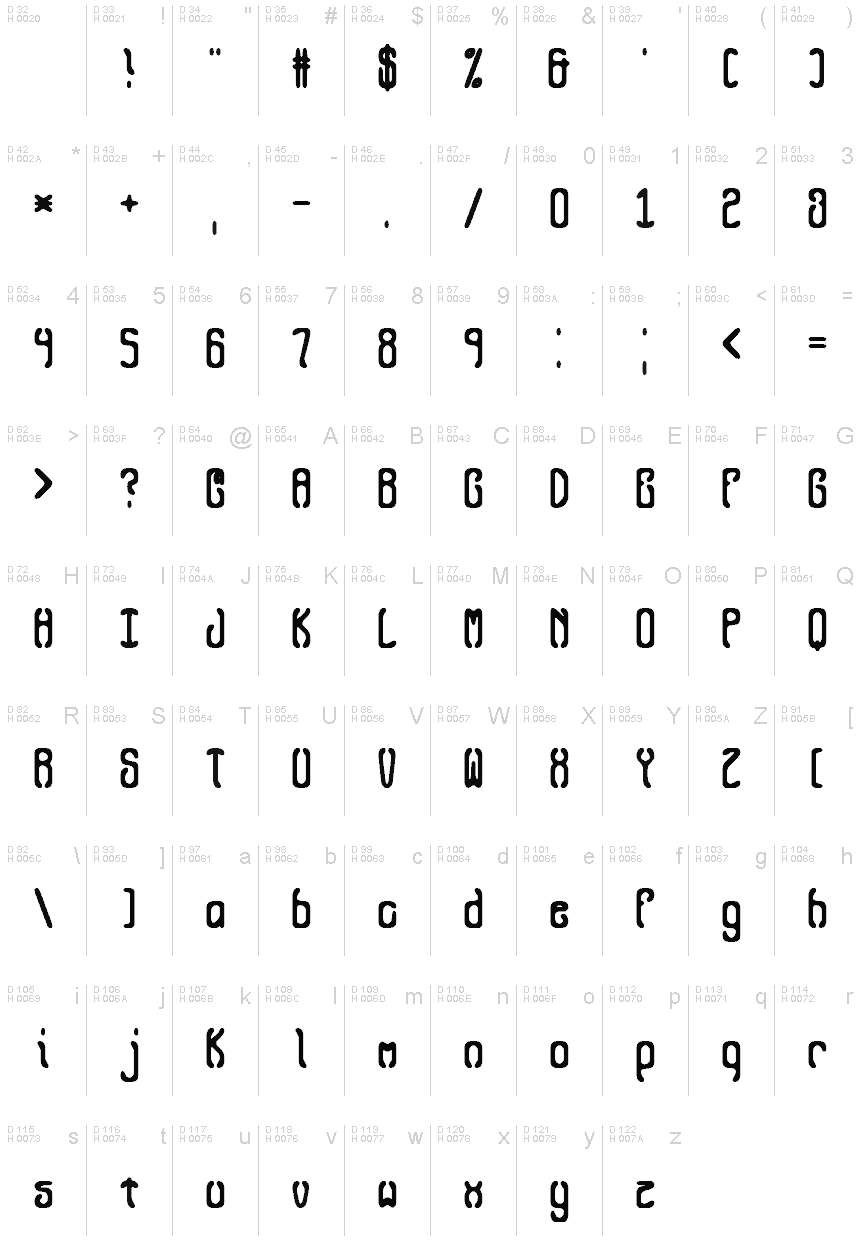
Queasy BRK
Queasy BRK, a creation of ÆNIGMA FONTS, stands out with its distinctive semi-light weight and condensed width that mark its presence in the realm of display fonts. This member of the Queasy font family embodies a unique aesthetic that is both eye-catching and functional. The whimsical curves and flowing lines offer a playful yet cohesive appearance, making it an excellent choice for designers looking to inject personality into their projects.
The style of Queasy BRK exudes an informal charm that can instantly elevate the visual narrative of any creative endeavor. Its condensed form allows for impactful headlines and statements without overwhelming the space, perfect for posters, branding, and digital media where space is at a premium but expression cannot be compromised.
Embrace the versatility and spirited character of Queasy BRK to bring a fresh and engaging twist to your designs.